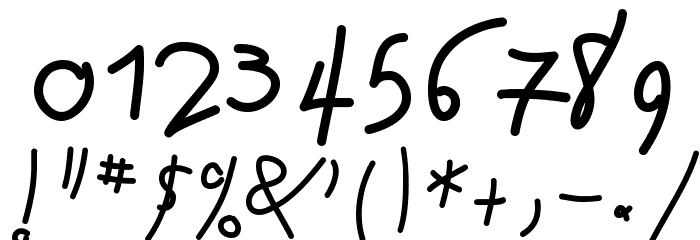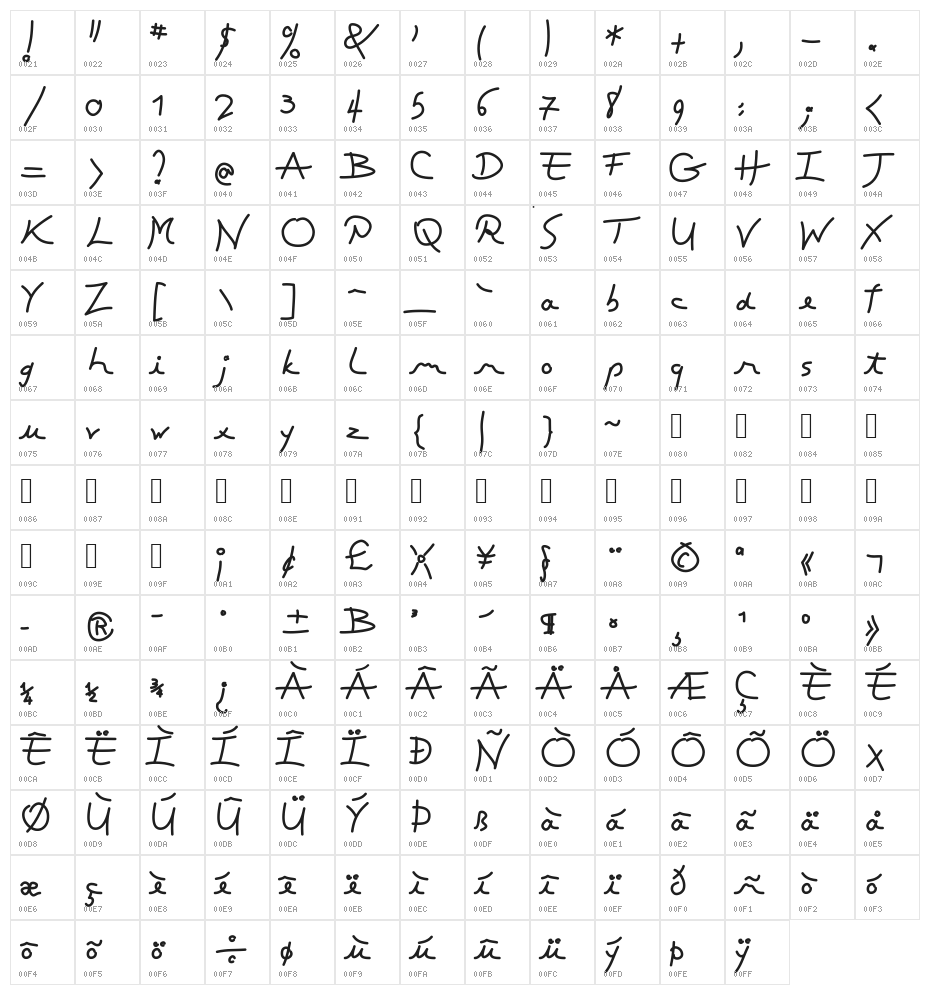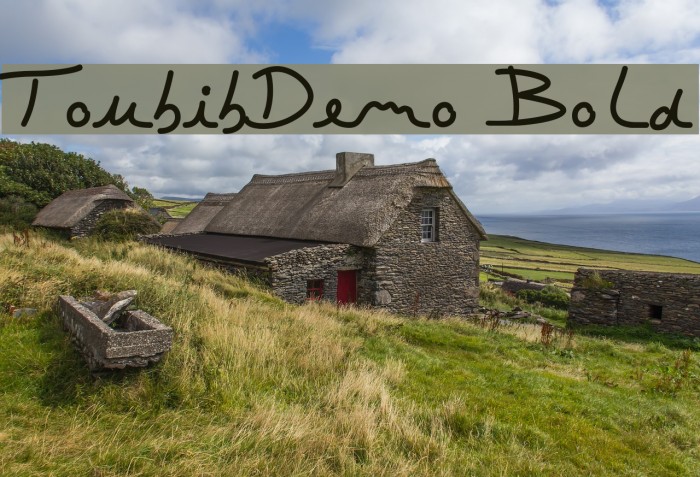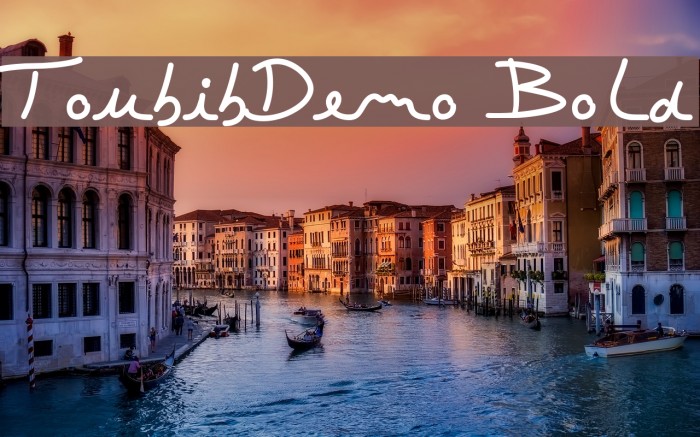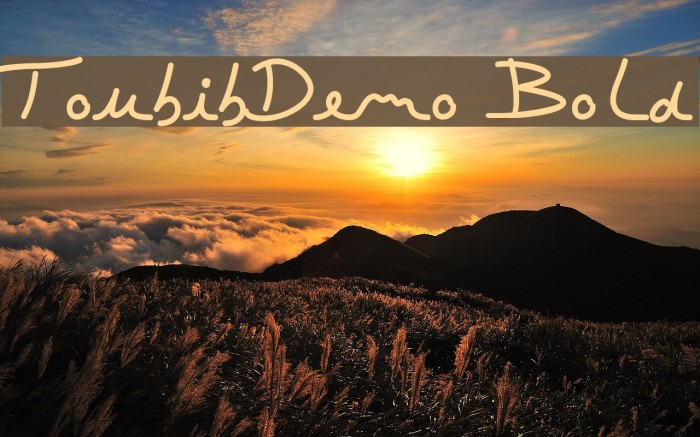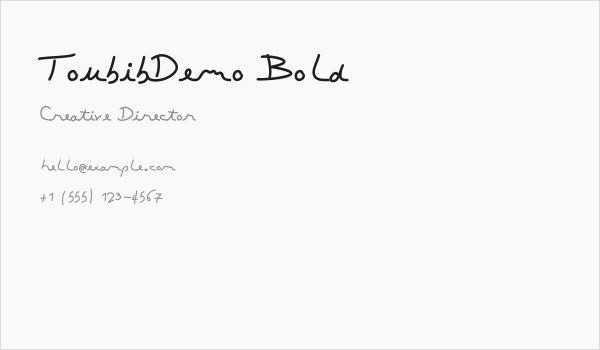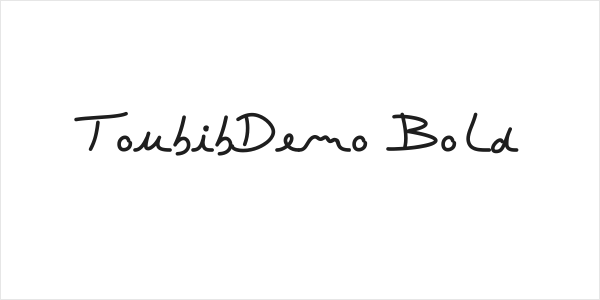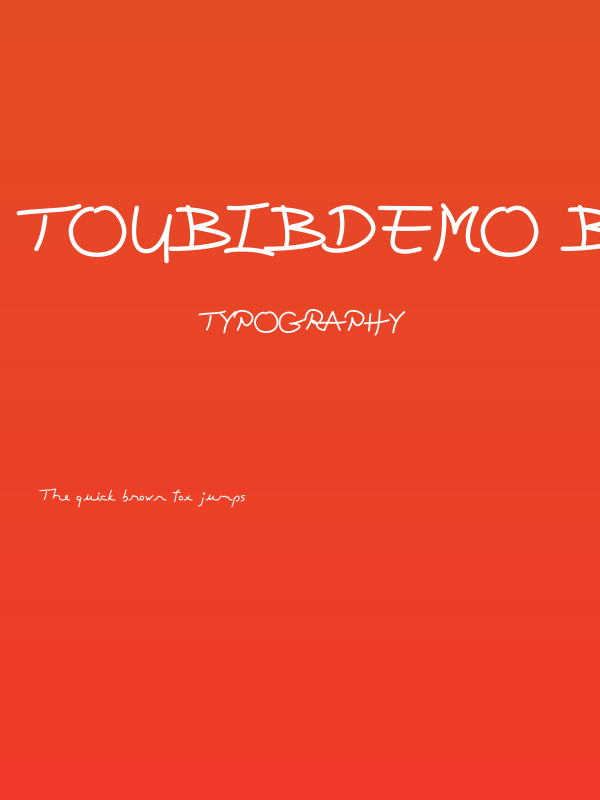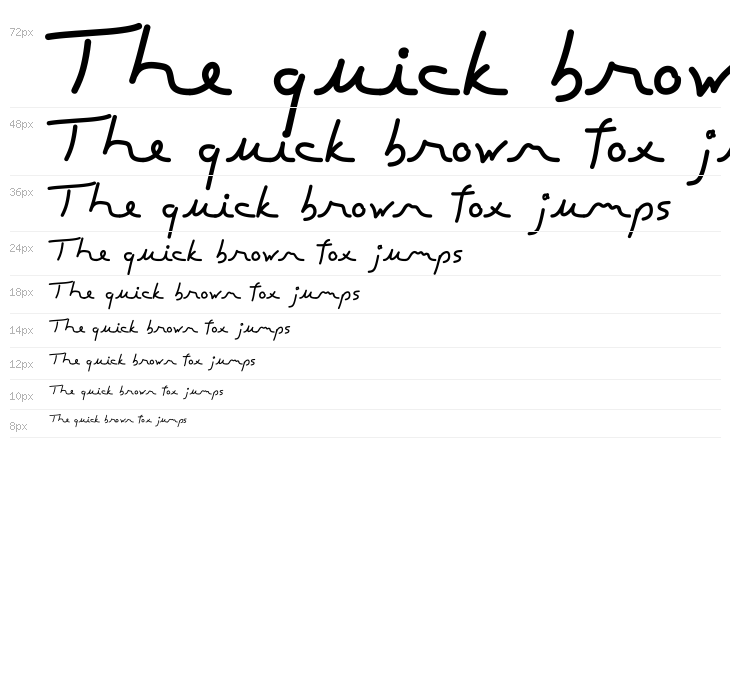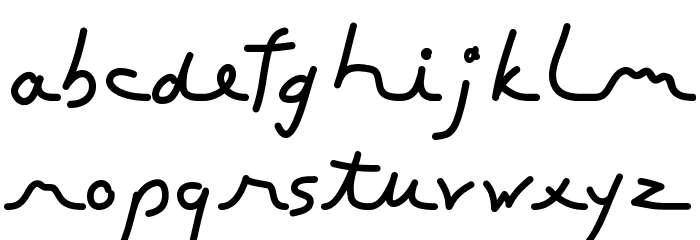
ToubibDemo Bold Font
ToubibDemo Bold Description
This font features a playful and casual handwritten style, characterized by its loose and flowing strokes. The letters have an informal, organic feel, with varying line thickness that adds a dynamic and lively appearance. The uppercase and lowercase letters maintain a consistent style, with rounded edges and a slight slant, giving the font a relaxed and approachable vibe. The numerals and special characters follow the same aesthetic, ensuring a cohesive look across all text elements. This font is ideal for projects that require a personal touch or a creative, informal presentation.